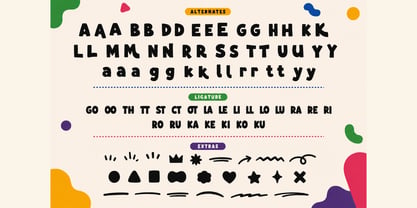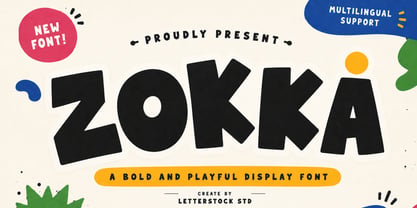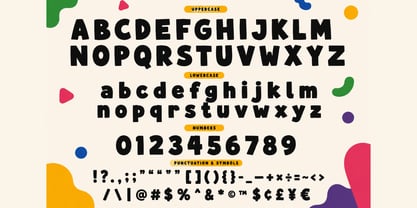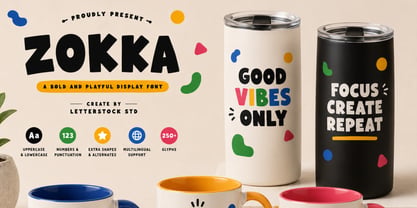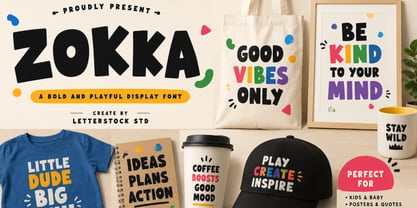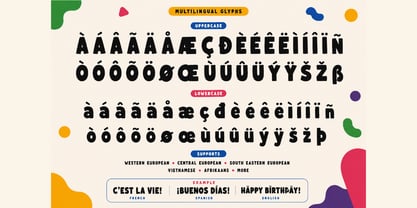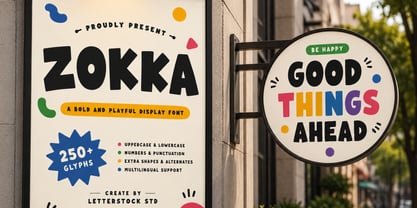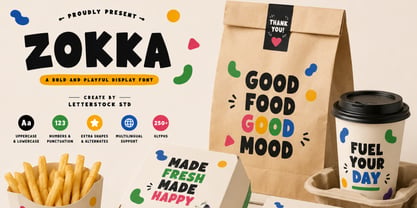
A Bold & Playful Display Font
Meet ZOKKA, a bold display font packed with playful energy and cheerful personality. Designed with chunky shapes, soft curves, and quirky proportions, this typeface instantly grabs attention while keeping every word fun and easy to read.
Perfect for projects that need a friendly, modern, and eye-catching look, ZOKKA works beautifully for branding, packaging, posters, children's products, logos, social media graphics, book covers, invitations, stickers, labels, stationery, café branding, food brands, YouTube thumbnails, educational materials, craft projects, and much more.
Its unique handmade-inspired letterforms bring warmth and character without sacrificing readability, making it an excellent choice for both digital and print designs.
Perfect For
*Branding & Visual Identity
*Logo Design
*Food & Beverage Packaging
*Kids Products
*Posters
*Book Covers
*Greeting Cards
*Social Media Posts
*YouTube Thumbnails
*Educational Materials
*Packaging Design
*Stickers
*Labels
*Café & Restaurant Branding
*Event Promotions
*Invitations
*Stationery
*Website Headers
*Creative Advertising
*DIY & Craft Projects
Font Features
*Uppercase Letters
*Lowercase Letters
*Numbers
*Punctuation
*Multilingual Support
*Stylistic Alternates
*Ligatures
*Extra Decorative Shapes
*Multilingual Support
Supports most Latin-based languages including:
Afrikaans, Albanian, Basque, Bosnian, Catalan, Croatian, Czech, Danish, Dutch, English, Estonian, Filipino, Finnish, French, Galician, German, Hungarian, Icelandic, Indonesian, Irish, Italian, Latvian, Lithuanian, Malay, Maltese, Norwegian, Polish, Portuguese, Romanian, Serbian (Latin), Slovak, Slovenian, Spanish, Swedish, Turkish, Vietnamese, Welsh, Zulu, and many more.
Why You'll Love ZOKKA
Bold and highly visible
Friendly handmade appearance
Perfect for playful branding
Great readability at large sizes
Includes alternates and ligatures for more creative combinations
Ready for both print and digital projects
Carefully crafted with consistent spacing and smooth curves